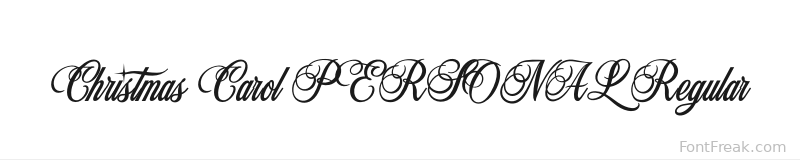
Christmas Carol PERSONAL Regular
The Christmas Carol PERSONAL Regular font by Mans Greback is a beautifully crafted script typeface that embodies the festive spirit of the holiday season. With its elegant, flowing letters and charming decorative elements, this font captures the essence of traditional Christmas themes. The strokes are delicately weighted, showcasing a moderate contrast that enhances legibility while maintaining a whimsical appeal. The generous spacing between characters ensures that each letter stands out, making it suitable for a variety of applications.
This font is ideal for creating warm and inviting designs such as wedding invitations, holiday greeting cards, and festive event posters. It can also elevate the aesthetic of restaurant menus during the holiday season, adding a touch of elegance to the dining experience. Graphic designers and content creators looking to evoke the charm of Christmas will find this font particularly appealing, as it effortlessly conveys a sense of cheer and celebration.
The target audience for the Christmas Carol PERSONAL Regular font includes graphic designers, small business owners, and anyone involved in crafting seasonal marketing materials. Its unique characteristics make it a versatile choice for both personal and commercial projects, allowing users to bring a festive flair to their work.
What sets the Christmas Carol PERSONAL Regular font apart is its ability to evoke nostalgia while remaining contemporary. The combination of its graceful script style and festive theme makes it a standout choice for holiday-related designs. With this font, you can easily infuse your projects with the warmth and joy of the holiday season. Don't miss the opportunity to enhance your creative endeavors with the Christmas Carol PERSONAL Regular font free download, a perfect addition to your typography collection.